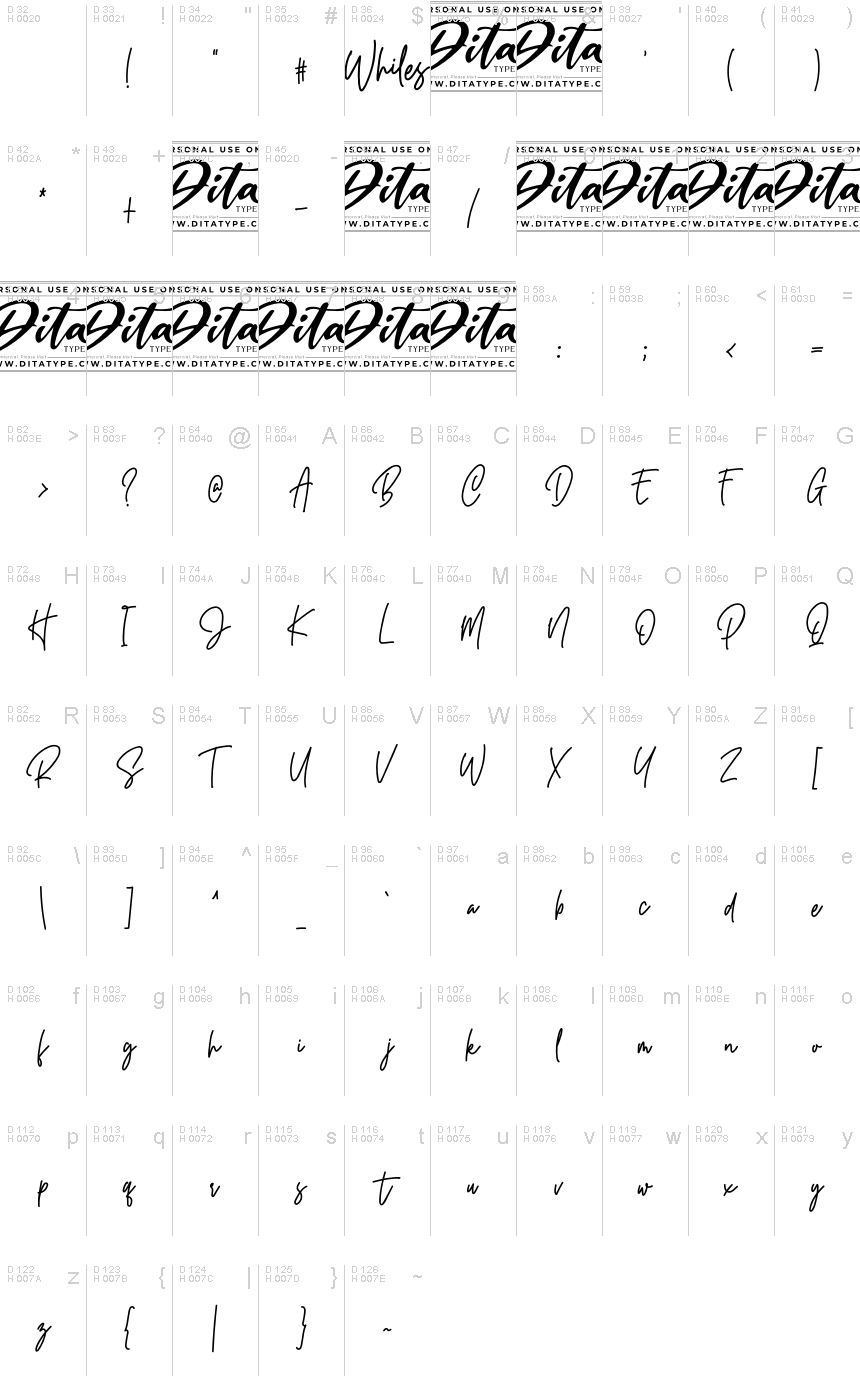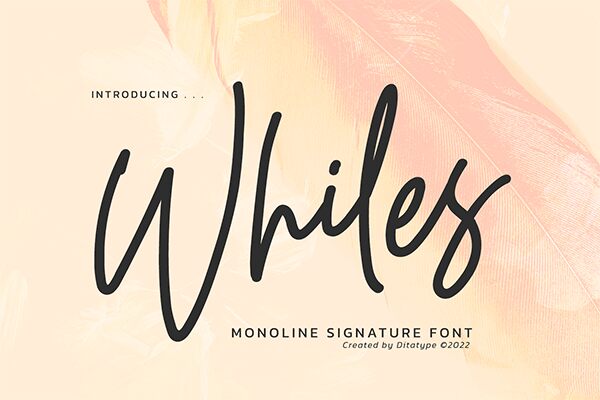
Whiles, crafted by Ditatype, exudes an elegant handwritten and signature-style charm. Its light weight lends a breezy yet sophisticated feel, perfect for designs aiming to emulate the fluidity and personal touch of penmanship. Whiles stands out with its seamless flow and strikingly organic forms, infusing each letter with a distinct personality.
Ideal for branding elements that require an intimate, bespoke appearance, this font shines in contexts like logos, invitations, and personal correspondence. The natural stroke variations make it particularly captivating in fashion-related or upscale lifestyle designs where refined authenticity is key.
Embrace the unique allure of Whiles to elevate your design projects with a touch of graceful individuality.